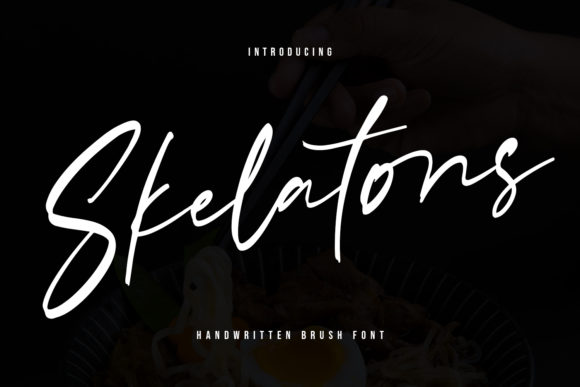
Behold, Skelatons Font - the captivating script font family crafted by the ingenious Maulana Creative. This remarkable font, exuding a casual and playful vibe, is a stroke of artistic brilliance created using a brush pen. Its clean lines and a touch of quirkiness make it a versatile choice that will elevate your designs to new heights.
Immerse yourself in the world of Skelatons Font, a font that dances with personality and charm, perfectly suited for your logos, branding, social media endeavors, and all your creative DIY projects. This font is a true gem, waiting to be discovered and unleashed upon the world.
With Skelatons Font as your secret weapon, you can craft logos that captivate, branding that resonates, social media posts that sparkle, and DIY projects that ooze creativity. Its versatility knows no bounds, allowing you to explore a myriad of styles and expressions.
Skelatons Font is more than just a collection of letters; it's an open invitation to let your imagination run wild. Its playful nature sparks joy and ignites creativity, transforming ordinary designs into captivating masterpieces. Embrace the magic of Skelatons Font and watch your designs transform before your eyes.